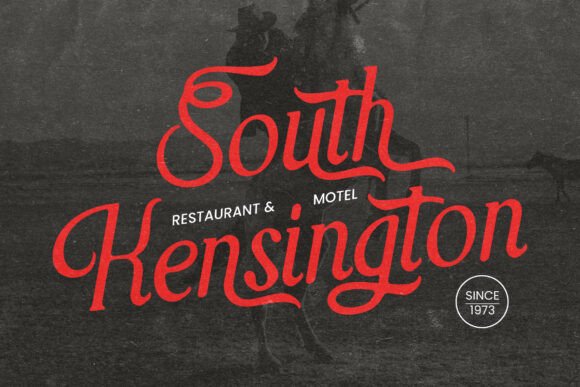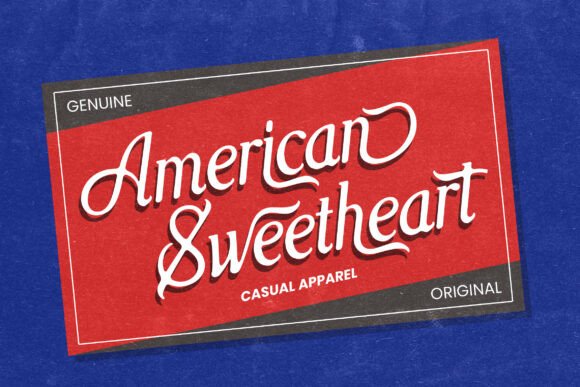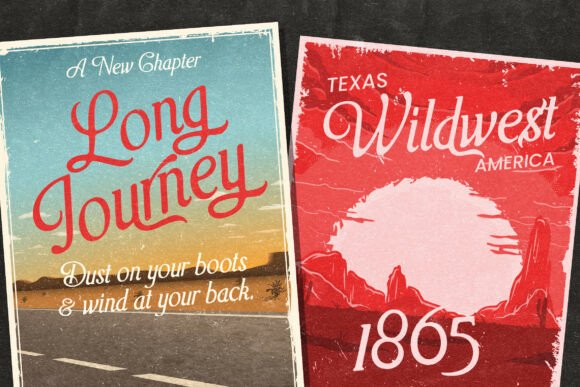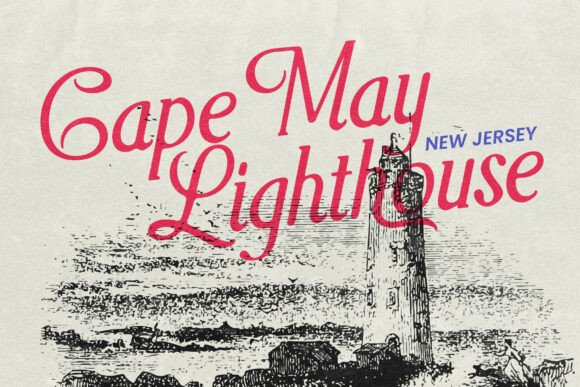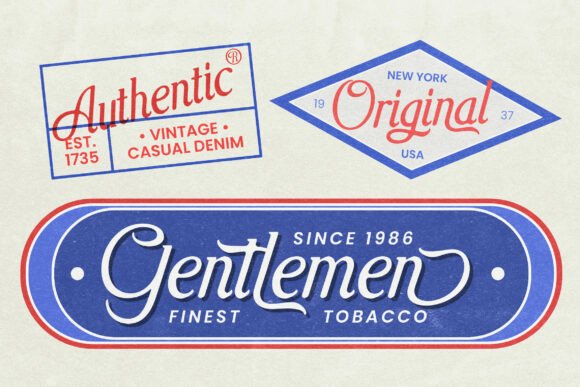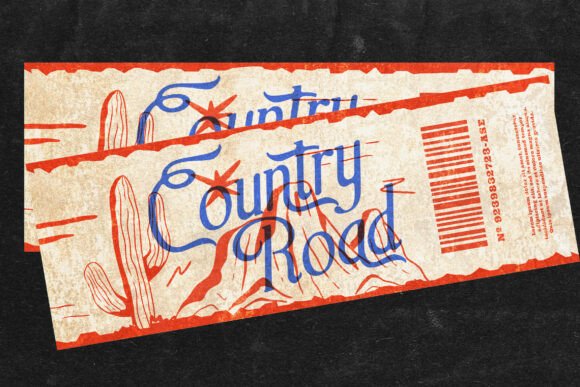
Discover the Charm of Antique Seaside Font: Elevate Your Designs with a Vintage Touch
Are you a designer or crafter looking for a unique and stylish font to add a touch of nostalgia to your projects? Look no further than the Antique Seaside Font. This bold, vintage-inspired font is perfect for creating eye-catching posters, logos, quotes, and more. With its rough edges and classic look, Antique Seaside Font is sure to make your designs stand out from the crowd.
What is Antique Seaside Font?
Antique Seaside Font is a bold, display font with a vintage aesthetic. Its rough edges and distressed texture give it a unique, handmade look that’s perfect for adding a touch of character to your designs. Whether you’re creating a poster, logo, or social media graphic, this font is sure to make a statement.
Key Features of Antique Seaside Font
- Bold and eye-catching: Antique Seaside Font is a bold, attention-grabbing font that’s perfect for creating striking designs.
- Vintage look: With its rough edges and distressed texture, this font has a classic, vintage aesthetic that’s perfect for adding a touch of nostalgia to your designs.
- Multi-language support: Antique Seaside Font supports multiple languages, making it a great choice for designers and crafters who work with international clients or want to create designs for a global audience.
- Stylish alternatives: To help you create stunning designs, Antique Seaside Font comes with stylish alternatives that you can use to add variety and interest to your projects.
Uses for Antique Seaside Font
Antique Seaside Font is a versatile font that can be used for a wide range of design projects, including:
- Posters: Create eye-catching posters for events, promotions, or advertising campaigns.
- Logos: Use Antique Seaside Font to create a unique and memorable logo for your business or brand.
- Quotes: Add a touch of elegance and sophistication to your quote designs with this beautiful font.
- Social media graphics: Use Antique Seaside Font to create engaging social media graphics that will help you stand out from the crowd.
Tips for Using Antique Seaside Font
To get the most out of Antique Seaside Font, here are a few tips to keep in mind:
- Experiment with different sizes: Antique Seaside Font looks great in large sizes, but it can also be used effectively in smaller sizes to add a touch of elegance to your designs.
- Pair with complementary fonts: To create visually interesting designs, try pairing Antique Seaside Font with complementary fonts that have a different style or texture.
- Use it sparingly: Because Antique Seaside Font is a bold font, it’s best to use it sparingly to avoid overwhelming your designs.
| Font Name | Antique Seaside Font |
| Author | LetterFreshStudio |
If you’re looking for a unique and stylish font to add a touch of nostalgia to your designs, Antique Seaside Font is a great choice. With its bold, vintage look and rough edges, this font is perfect for creating eye-catching posters, logos, quotes, and more. Whether you’re a designer or crafter, Antique Seaside Font is sure to become a favorite in your font collection.